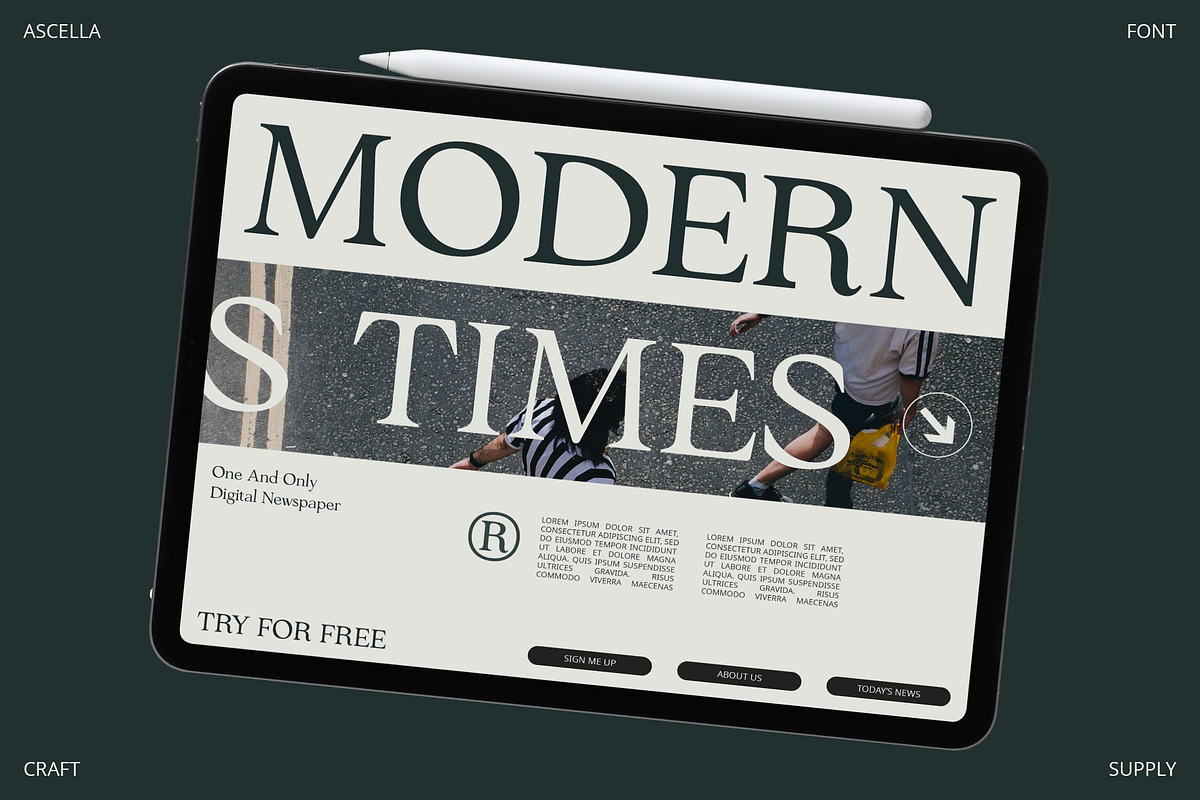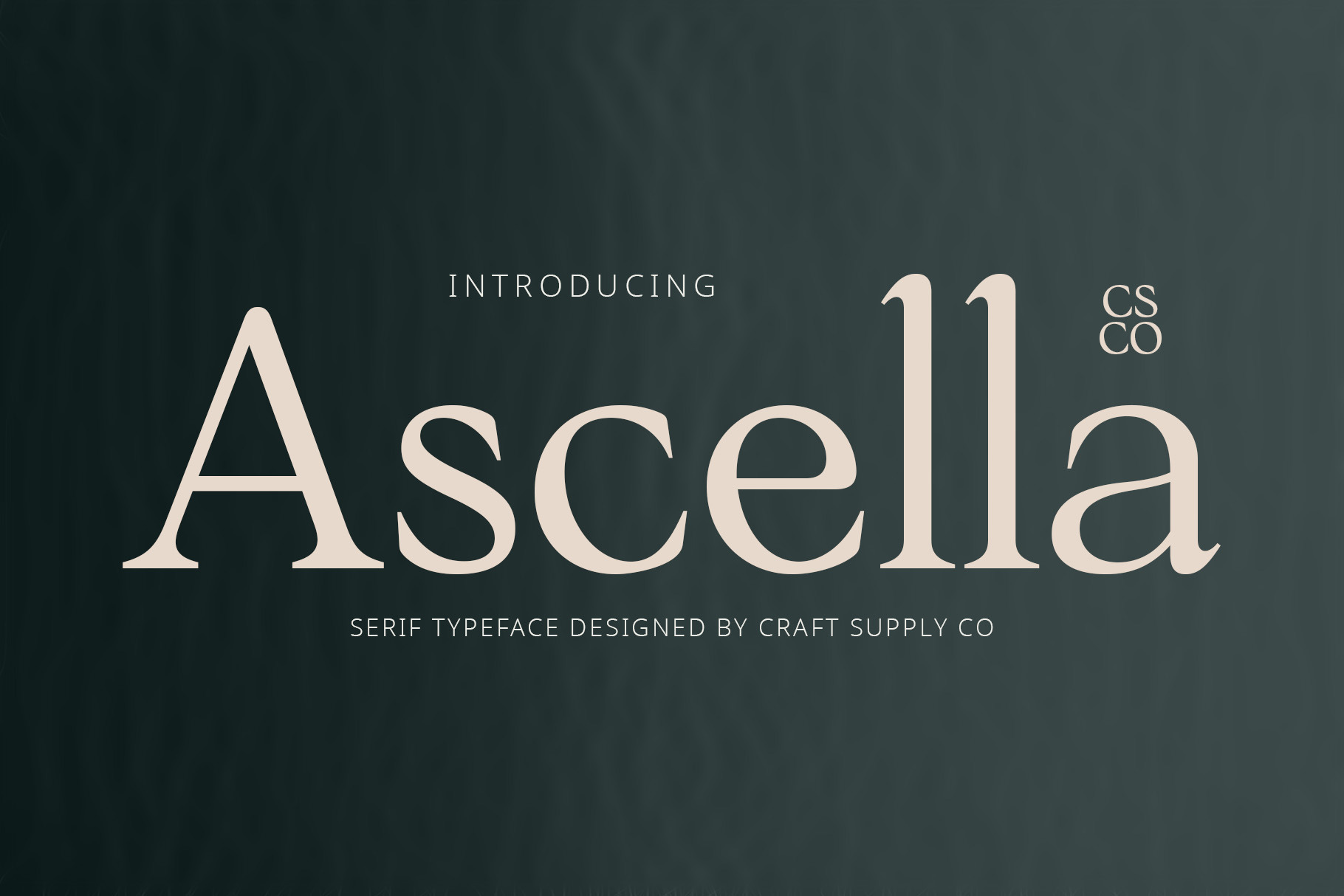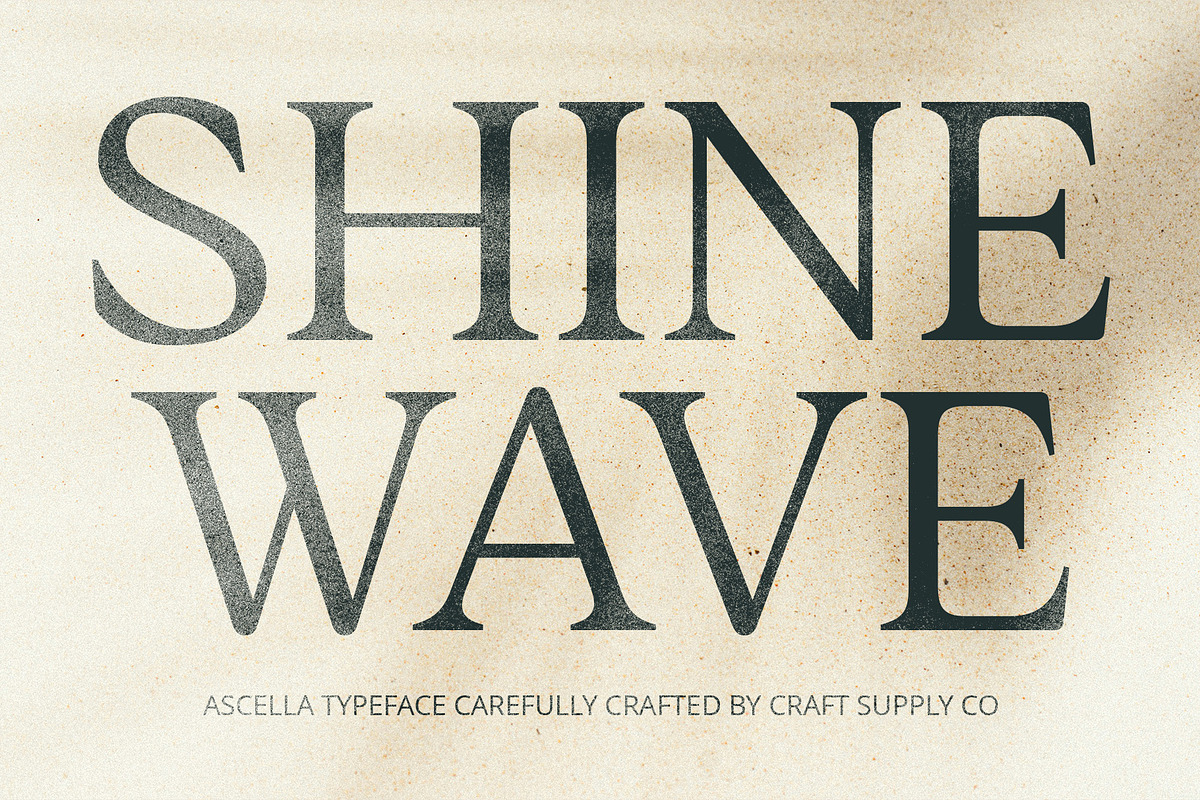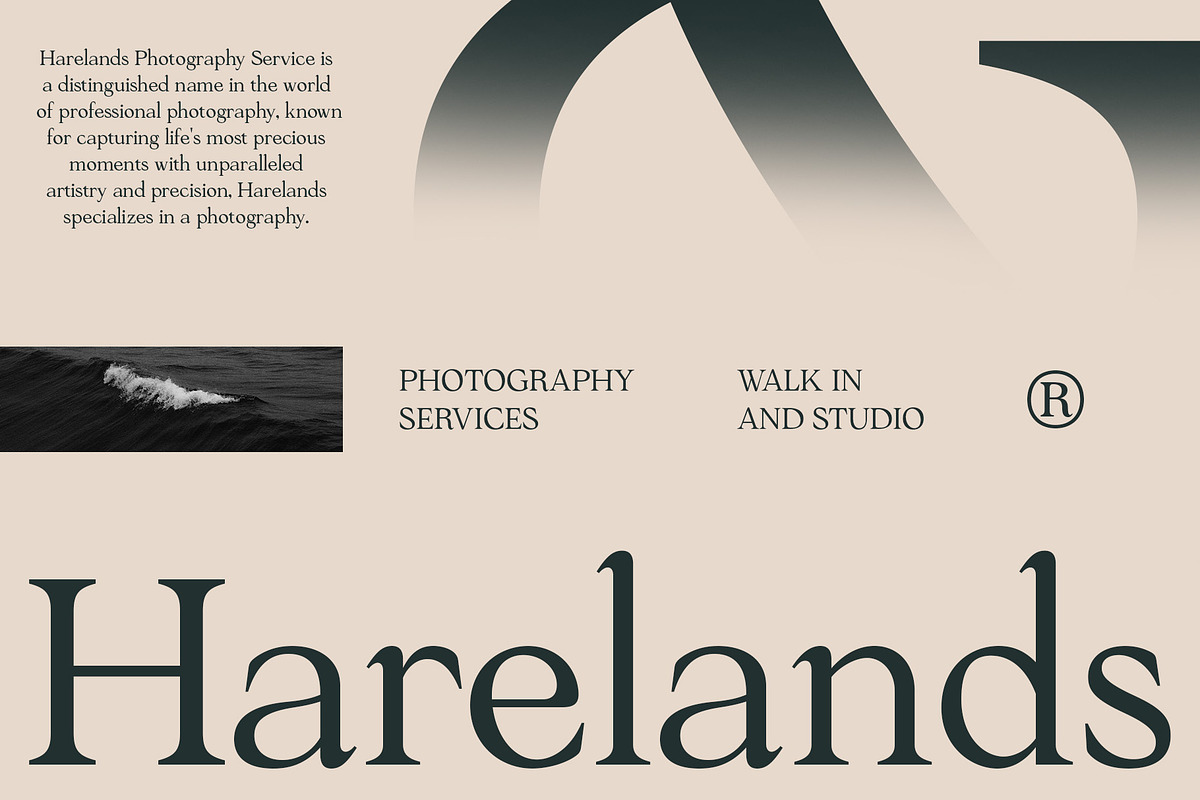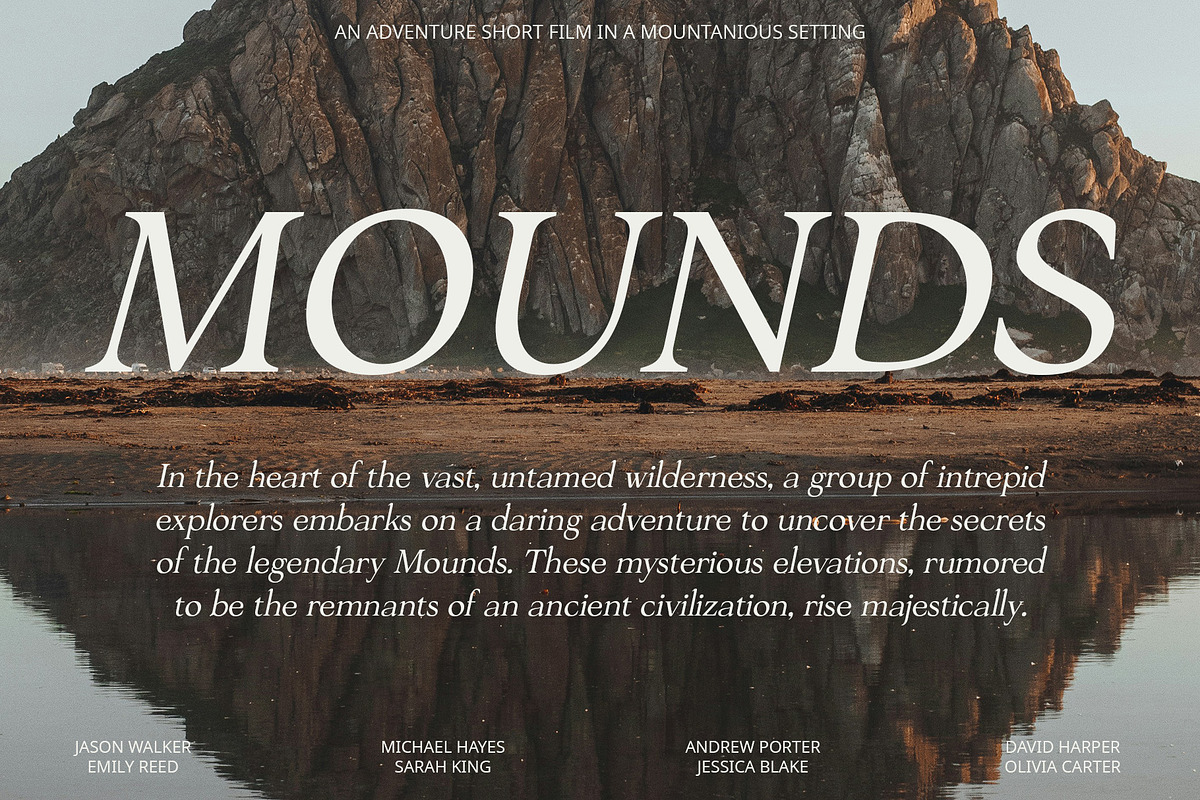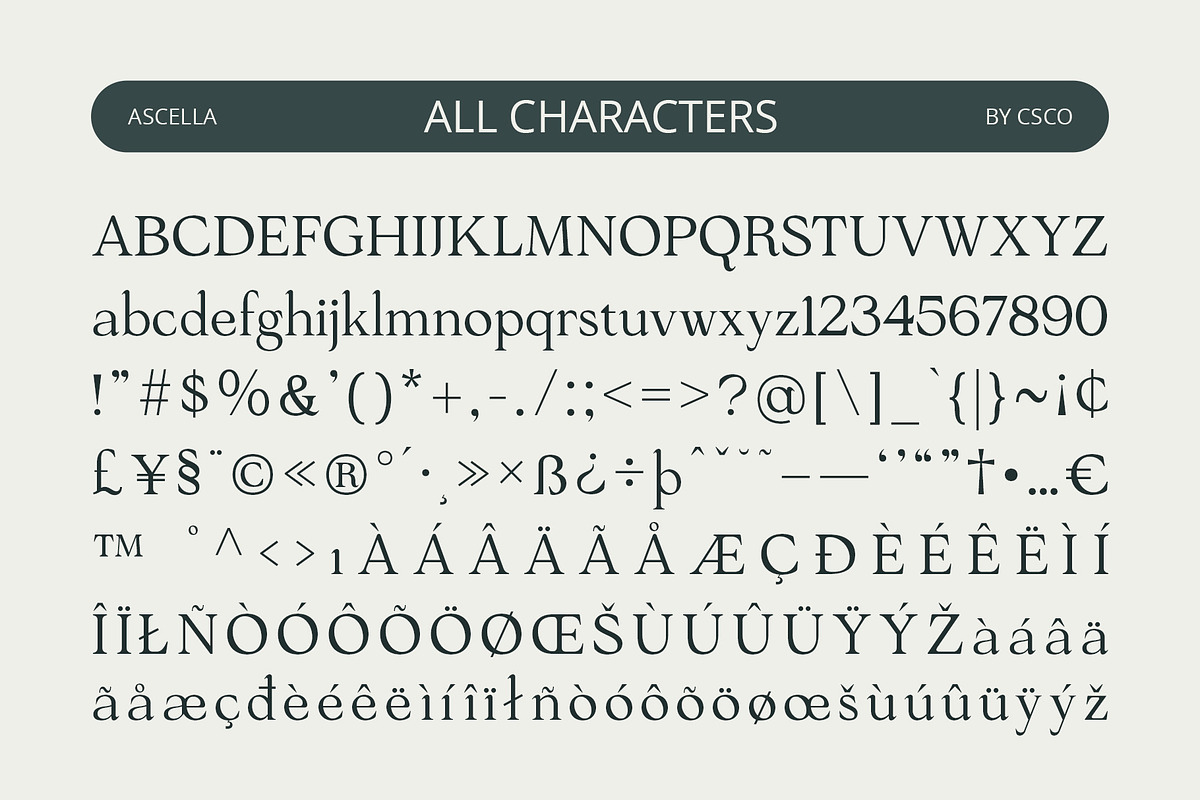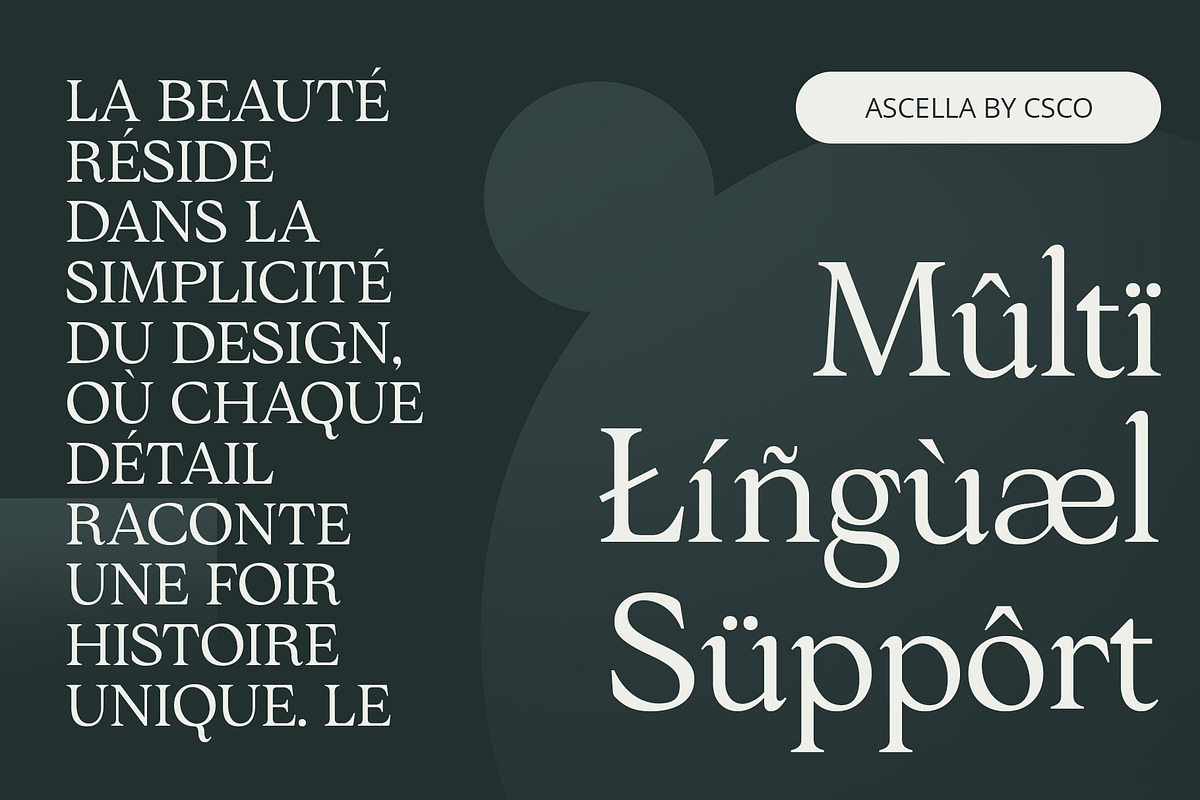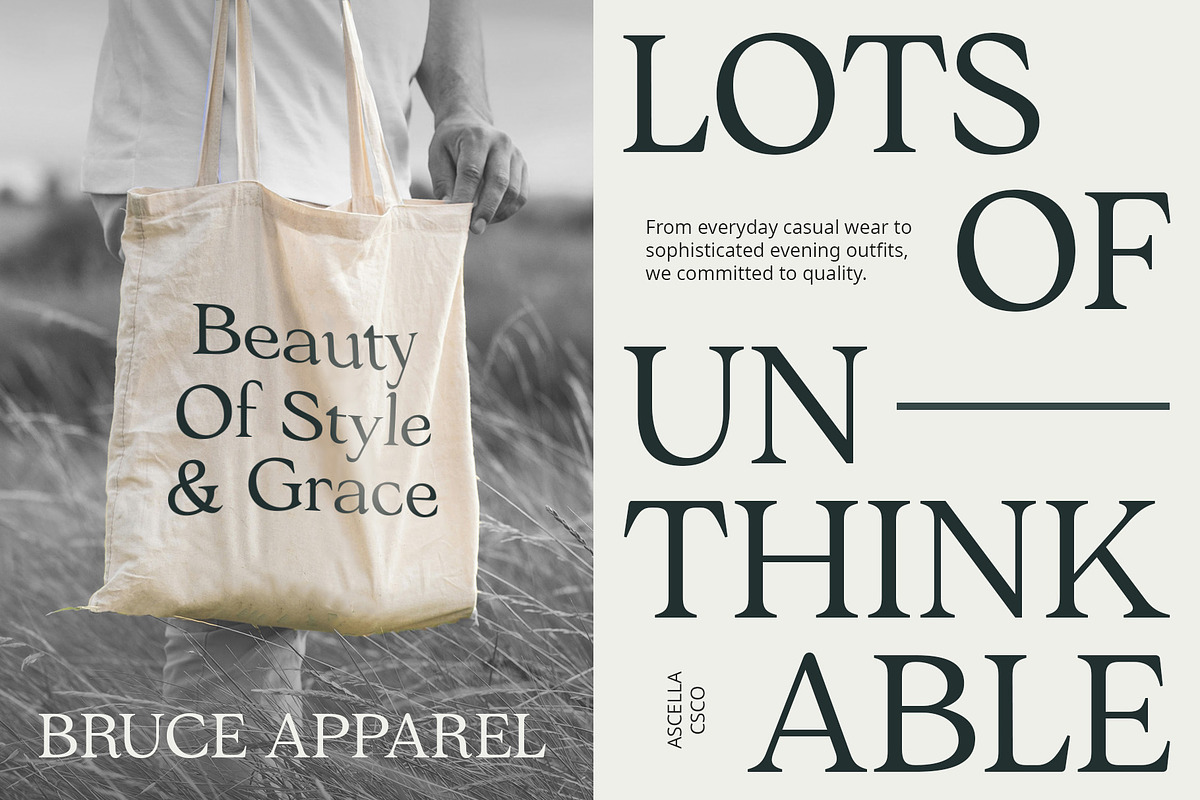
Ascella – Modern Font
Ascella: Where Modernity Meets Elegance
Elegant Modern Serif
Ascella is a modern serif font with an elegant style, perfect for professional use. Its sleek lines and refined details make it ideal for a wide range of projects, from branding to editorial design.
Modern Serif with Elegant Style
With its clean lines and timeless elegance, Ascella offers a fresh take on traditional serif fonts. The modern design creates a sophisticated and professional look, perfect for corporate communications, logos, and more.
Perfect for Professional Use
Whether you’re designing a business card or creating a website, Ascella is sure to make a lasting impression. Its elegant style and professional appeal make it versatile and suitable for a variety of applications.
Versatile and Easy to Use
Despite its distinctive appearance, Ascella is versatile and easy to use. The font works well in both large and small sizes, making it suitable for headlines, body text, and everything in between. With its blend of modern design and elegant style, Ascella adds a touch of sophistication to any project.
- Ascella Regular
- Ascella Italic